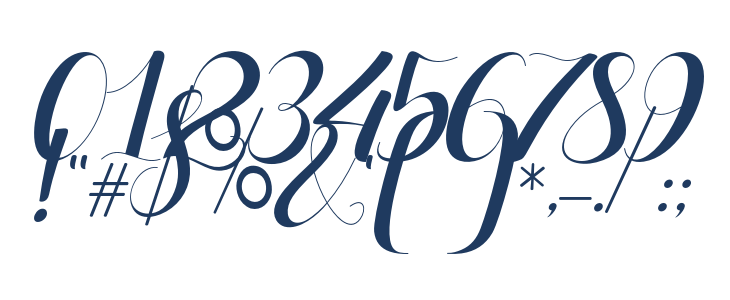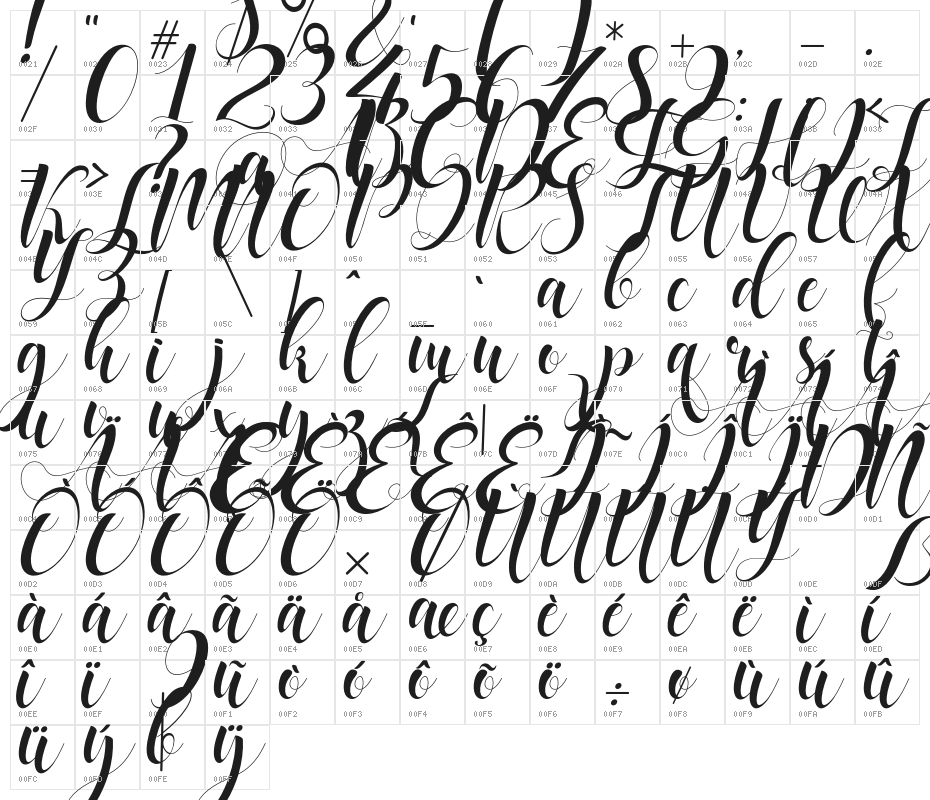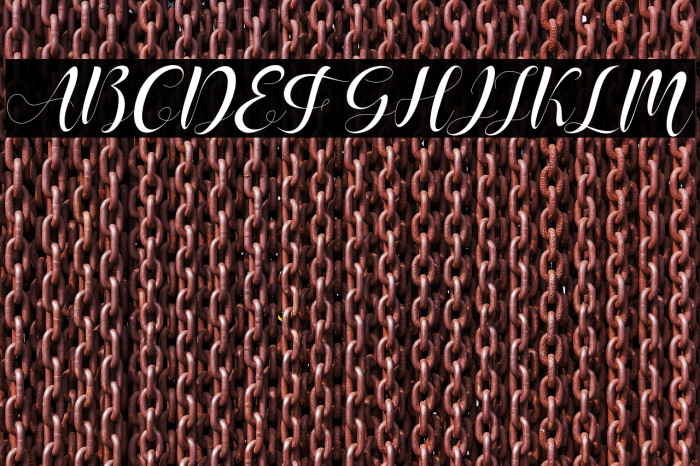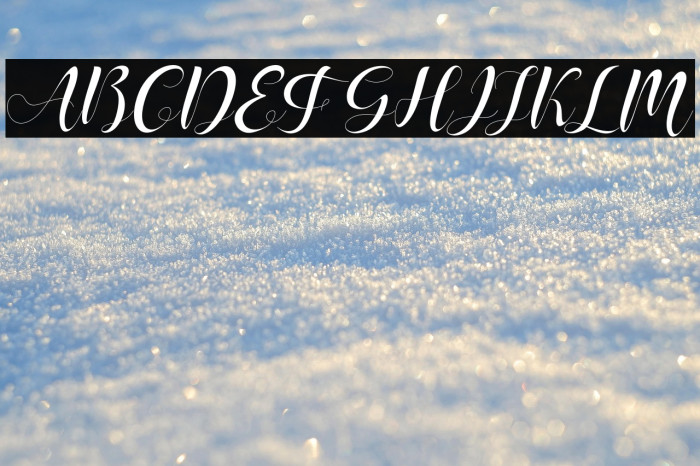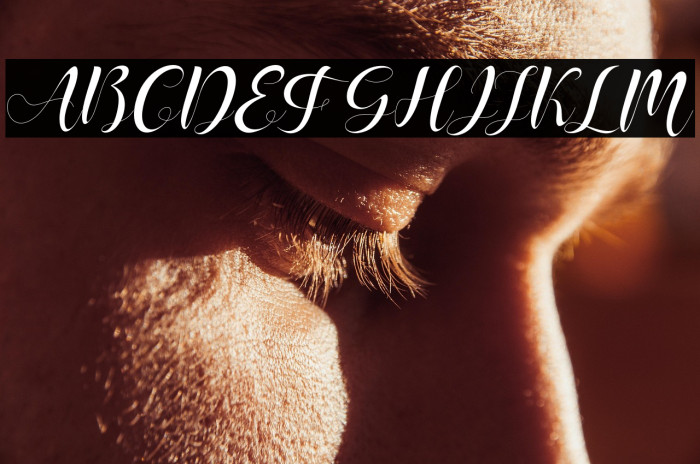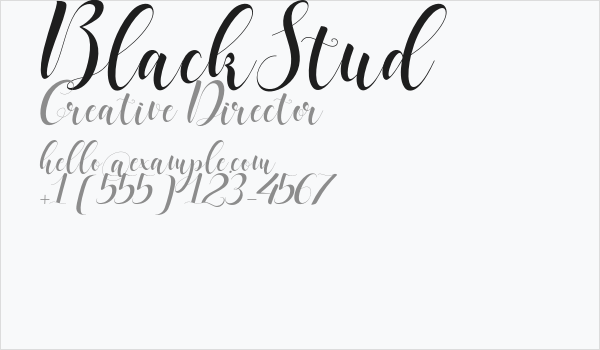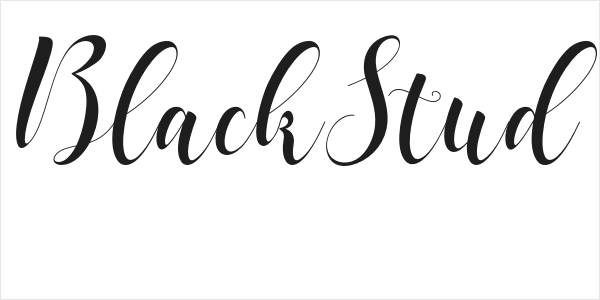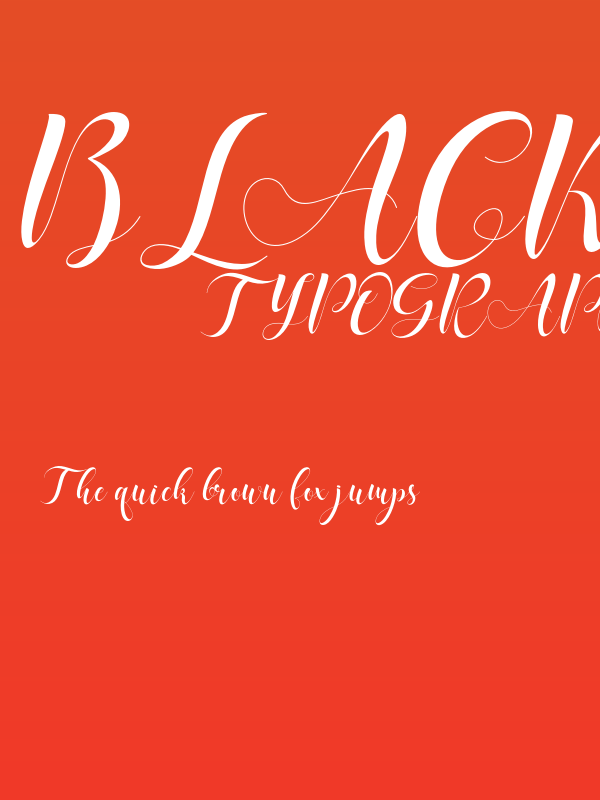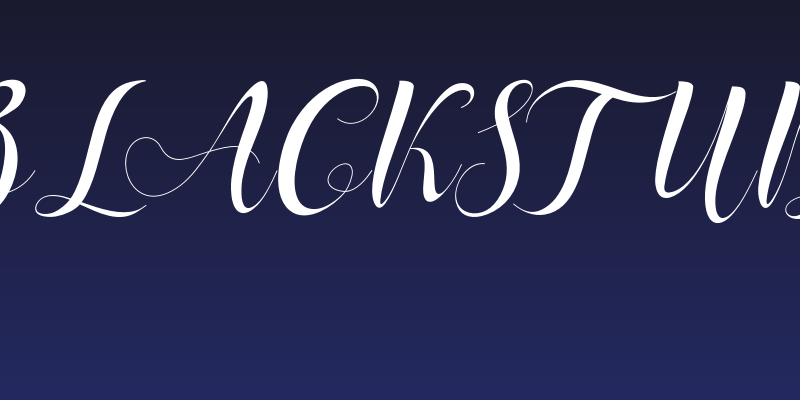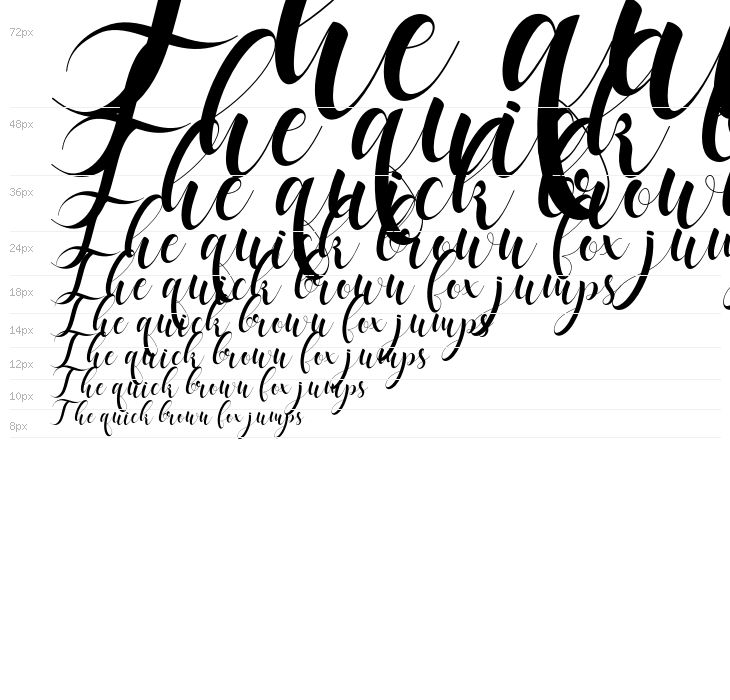
BlackStud Font
BlackStud Description
This elegant script font features flowing, interconnected letters with a sophisticated and artistic flair. The uppercase letters are characterized by their sweeping curves and decorative flourishes, giving them a sense of movement and grace. The lowercase letters maintain a consistent style, with smooth transitions and a slightly more restrained use of embellishments. The numerals are bold and dynamic, complementing the overall aesthetic of the font. Special characters are designed with the same attention to detail, ensuring a cohesive look across all elements. This font is perfect for projects that require a touch of elegance and creativity.
| Overall Style | Elegant, Artistic |
| Proposed Projects | Ideal for wedding invitations, luxury branding, elegant packaging, and artistic posters. |